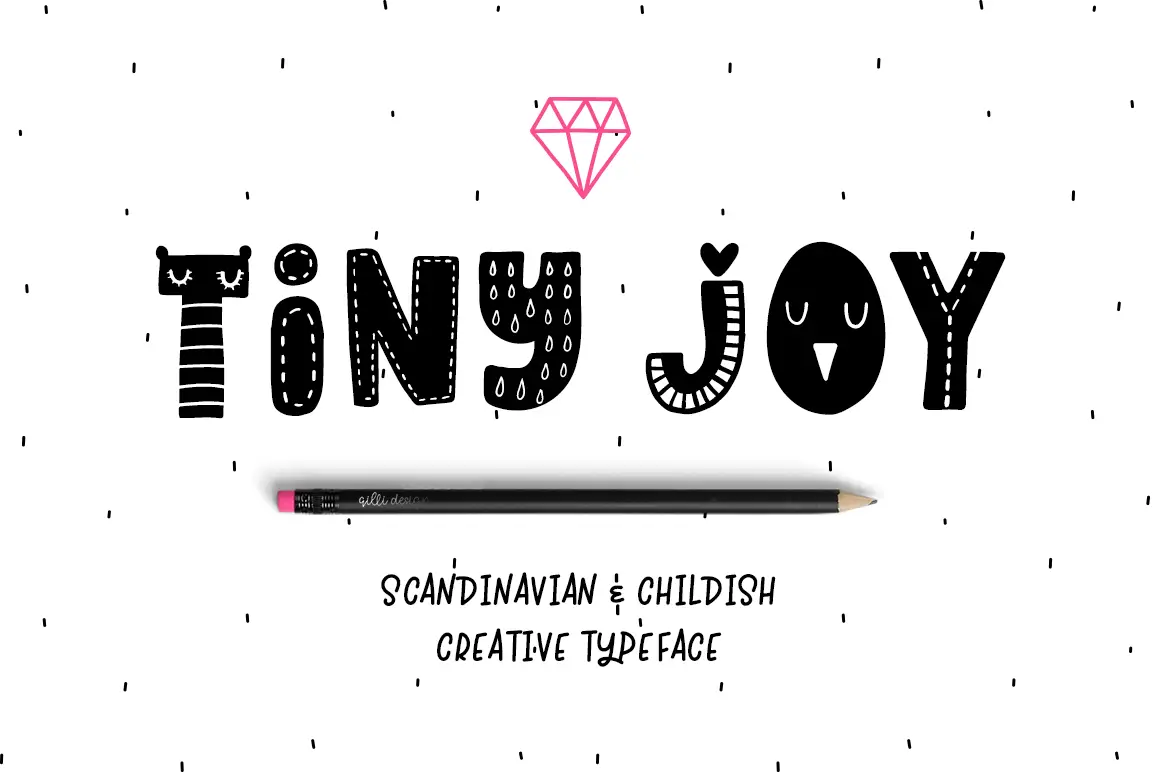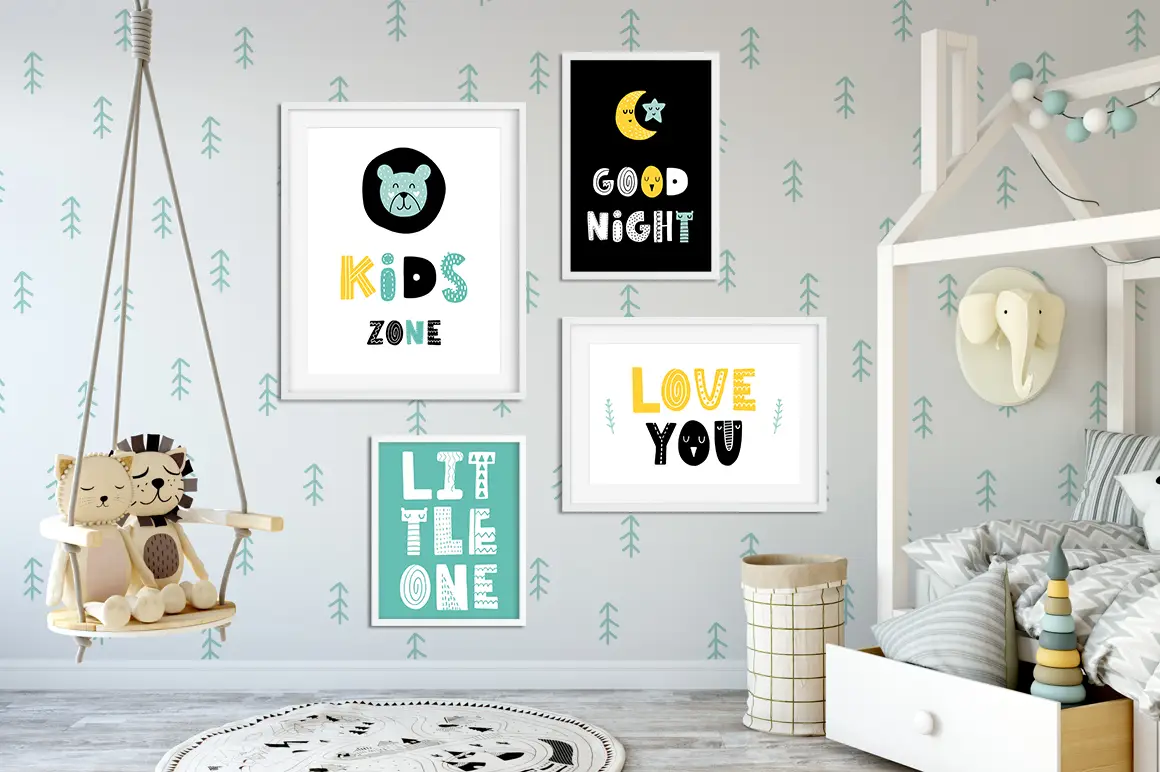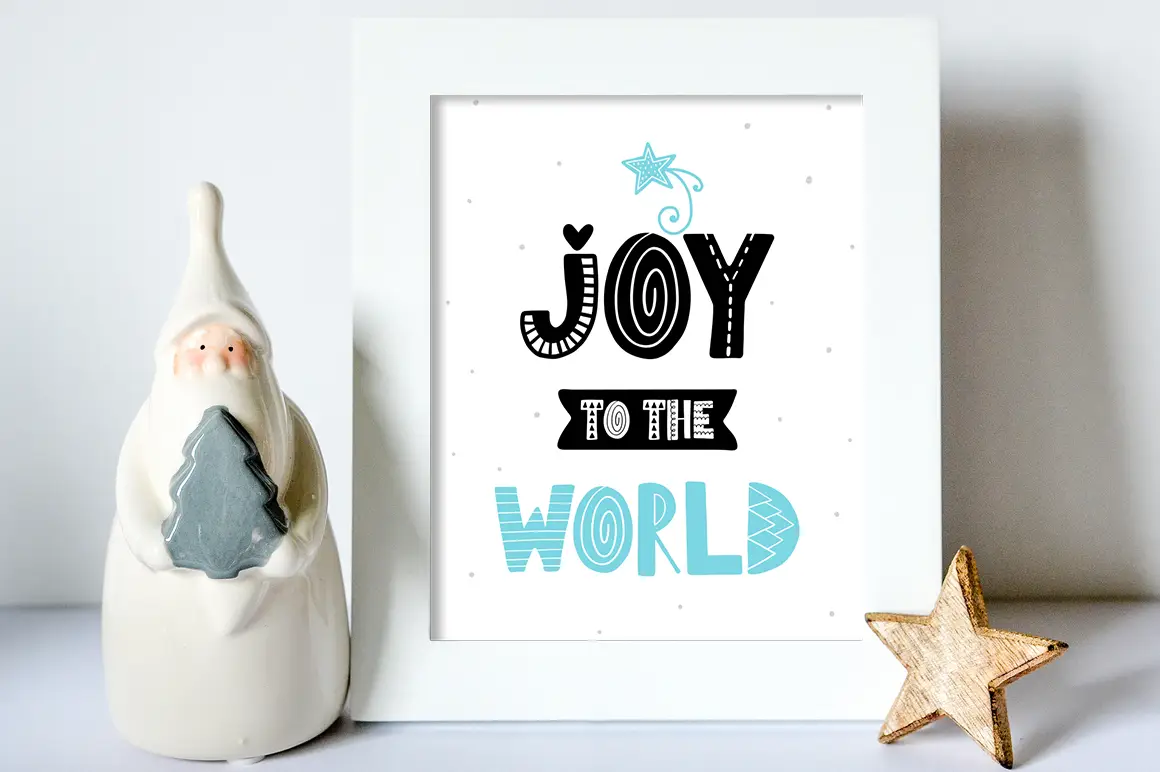
The Tiny Joy Font is a delightful typeface that brings a playful Scandinavian touch to your designs. Perfectly suited for children’s projects, this font features rounded edges and a friendly appearance, making it ideal for branding, logos, and print materials.
• Unique Scandinavian design
• Playful and friendly style
Utilize Tiny Joy Font for children’s books, educational materials, posters, and any project that requires a cheerful and inviting typeface.